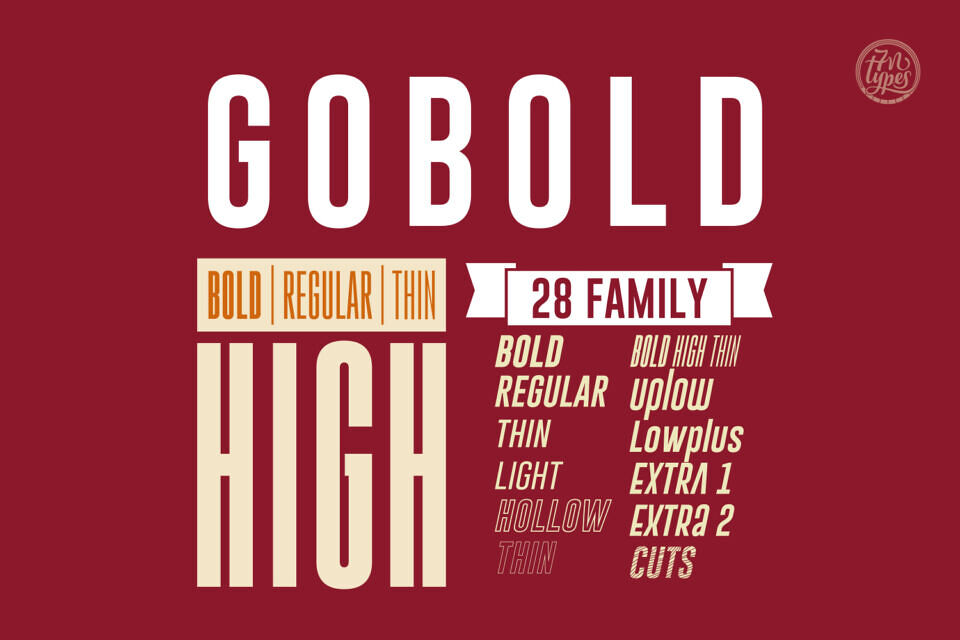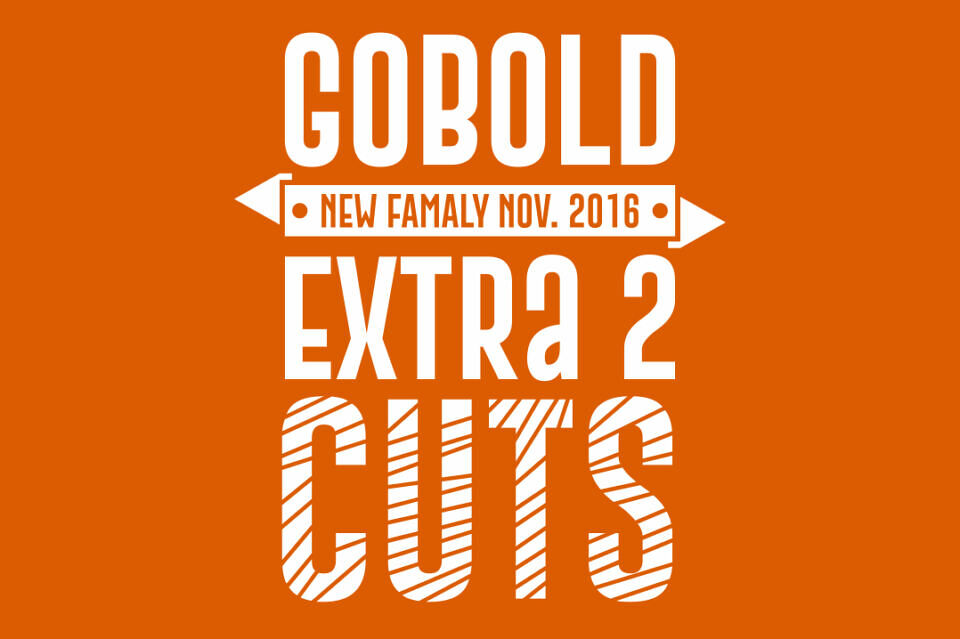
Gobold is a stunning, versatile sans serif family packed with 28 variations. Each variations matches the rest of the family which makes Gobold useful for any project.